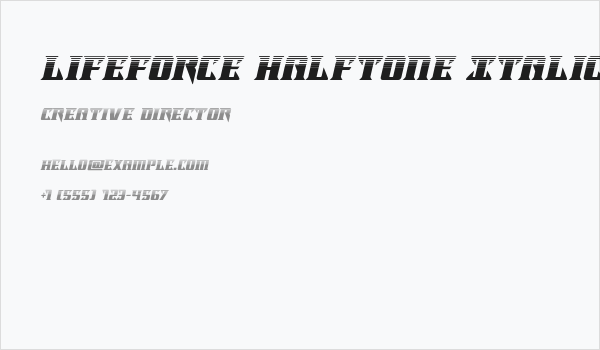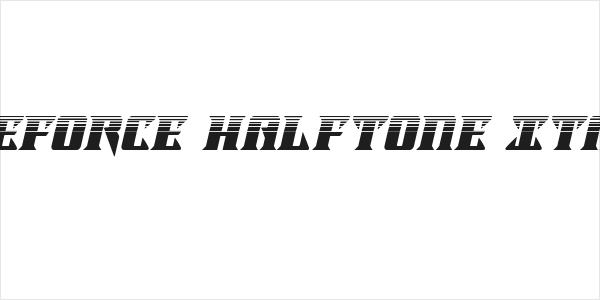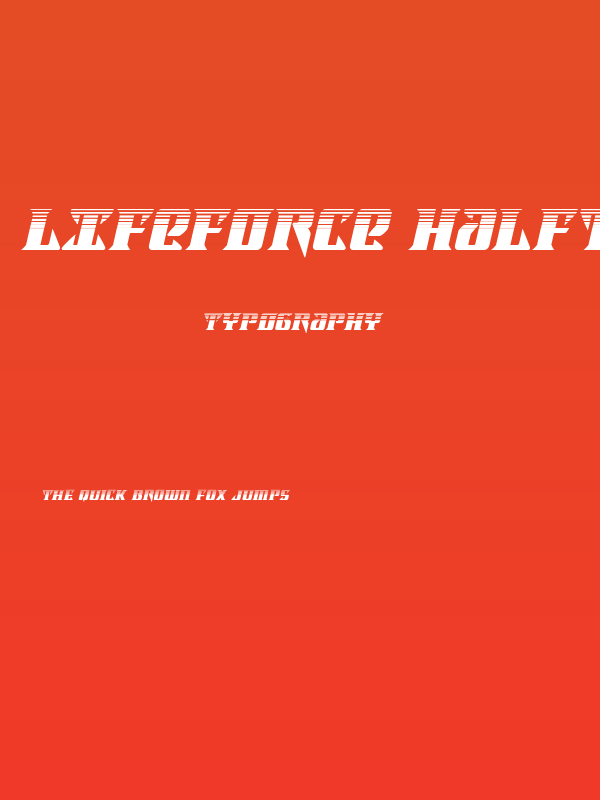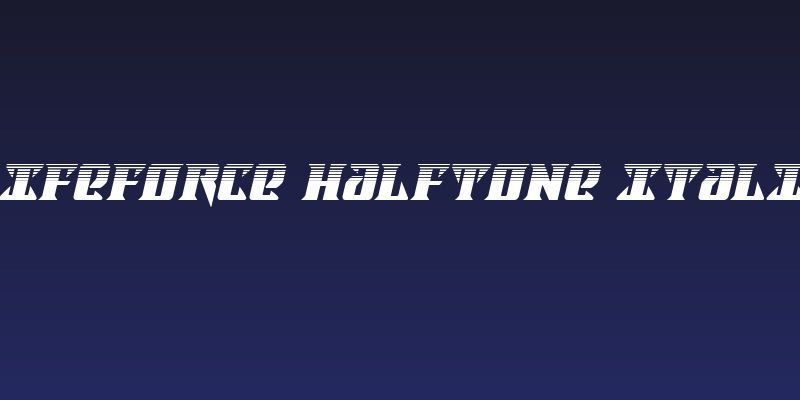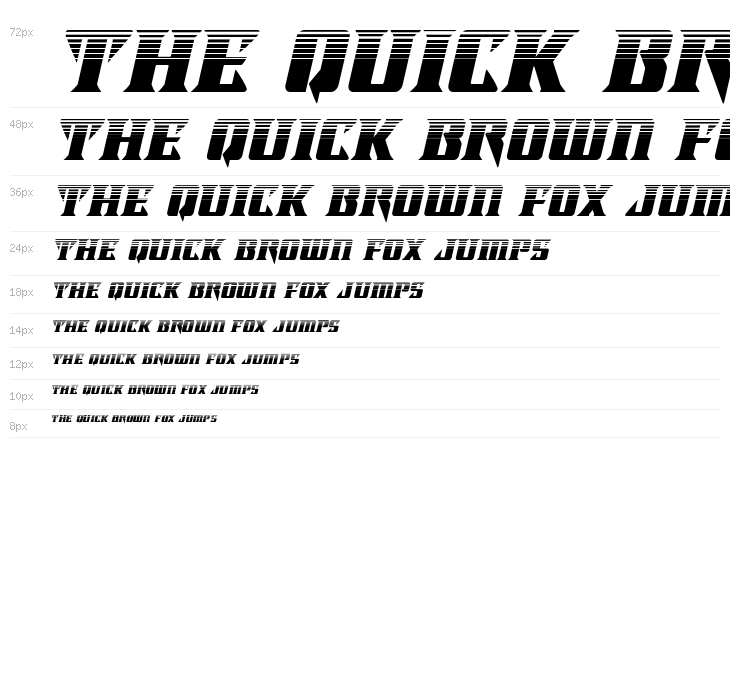
Lifeforce Halftone Italic Font
Lifeforce Halftone Italic Description
This font features a bold, dynamic style with a distinct halftone effect that gives it a futuristic and edgy appearance. The characters are italicized, adding a sense of motion and speed. The uppercase letters are particularly striking, with sharp angles and a unique striped pattern that adds depth and texture. The numbers and special characters maintain this bold aesthetic, making them stand out. This font is ideal for projects that require a modern, high-impact look, such as posters, album covers, or video game graphics.
| Overall Style | Futuristic, Edgy |
| Proposed Projects | Ideal for posters, album covers, video game graphics, and futuristic branding. |